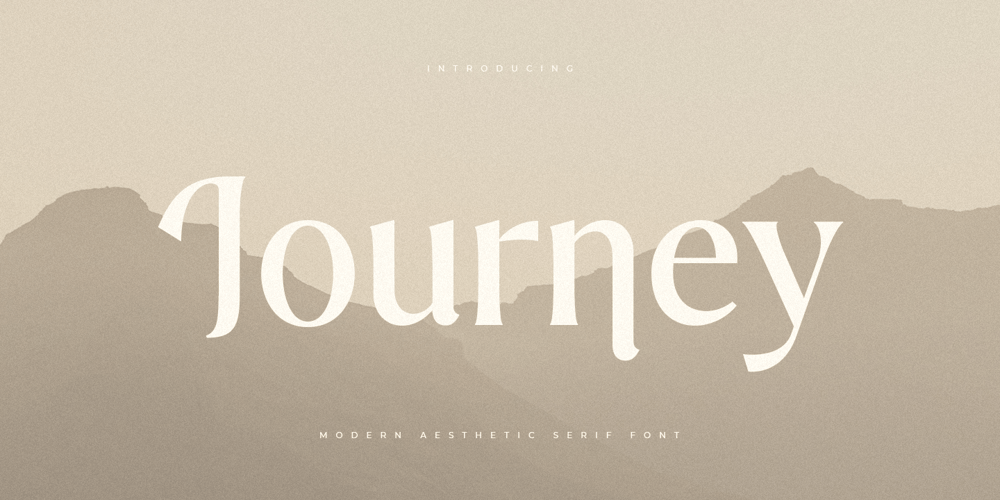
Journey Style
Journey Style font
Journey Style Font Family was designed by Zamroni Hamzah and published by Sensatype Studio. Journey Style contains 4 styles and family package options. A serif that we created special for elegant branding needs, with extra ligature and alternates in unique shape will be ready to add value of your brand. It so nice to leverage designer or product owner that need solutions to make their design look more classy and modern. And specially for Calista font, We prepared any ligatures, and any alternate characters to help you create unlimited variations for your creative needs.Calista sans serif font ready with: Any options to get creative variations (combination of Alternate and Ligatures) Ready 4 Weights (Regular, Bold, Italic, Bold Italic) Preview as a inspirations that you can do with Calista font Ready with Lowercase and Uppercase characters Wish you enjoy our font. 🙂